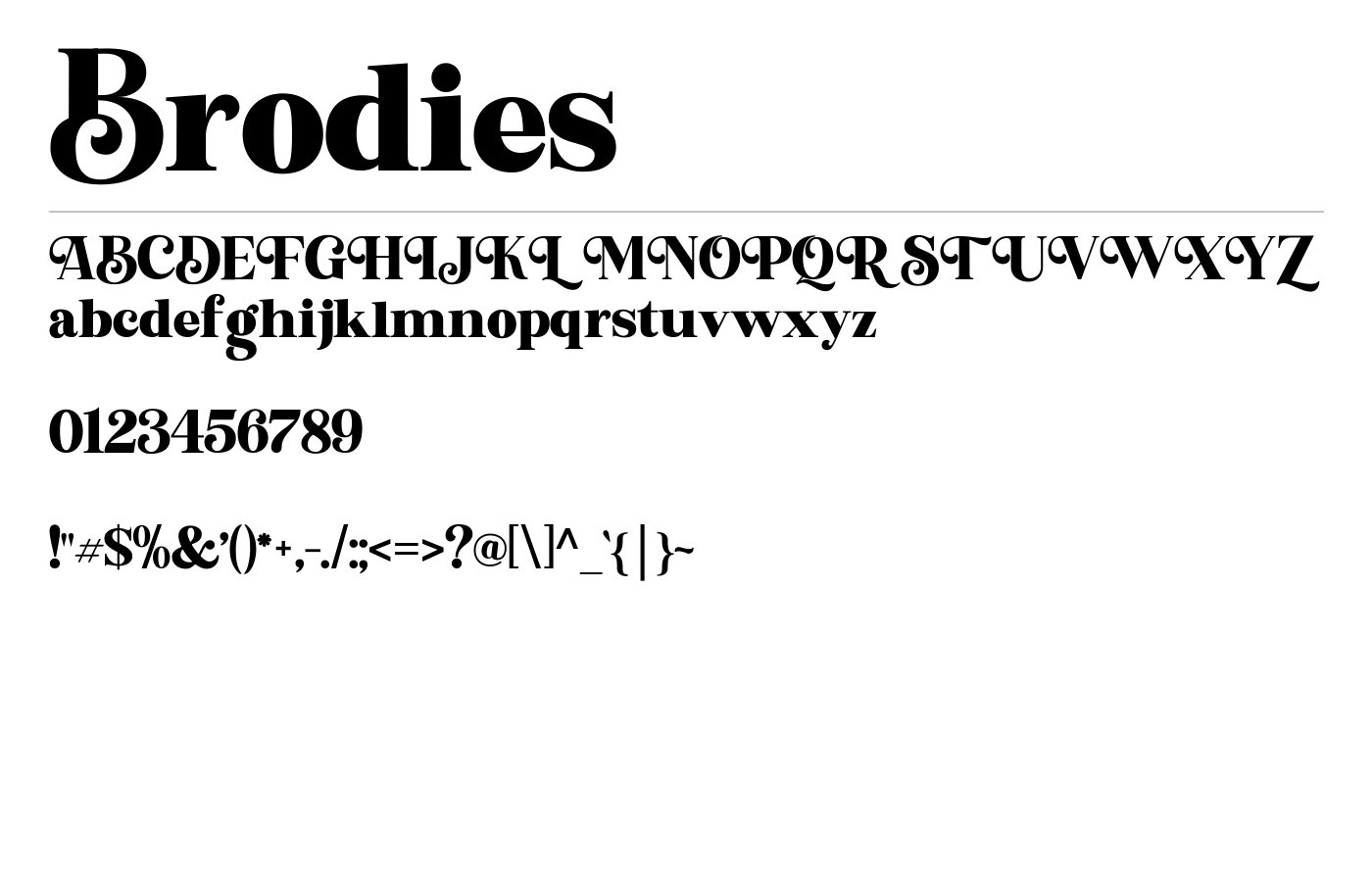
Brodies is a bold serif font with a vintage flair, featuring high contrast strokes and decorative swirls on uppercase letters that add a playful yet elegant touch. Its sturdy, rounded shapes and distinct ornamental details make it ideal for eye-catching headlines, logos, and branding where a classic, stylish personality is desired. This font works beautifully in fashion, editorial, and packaging projects seeking a memorable, sophisticated look with a bit of artistic charm.
Brodies Font